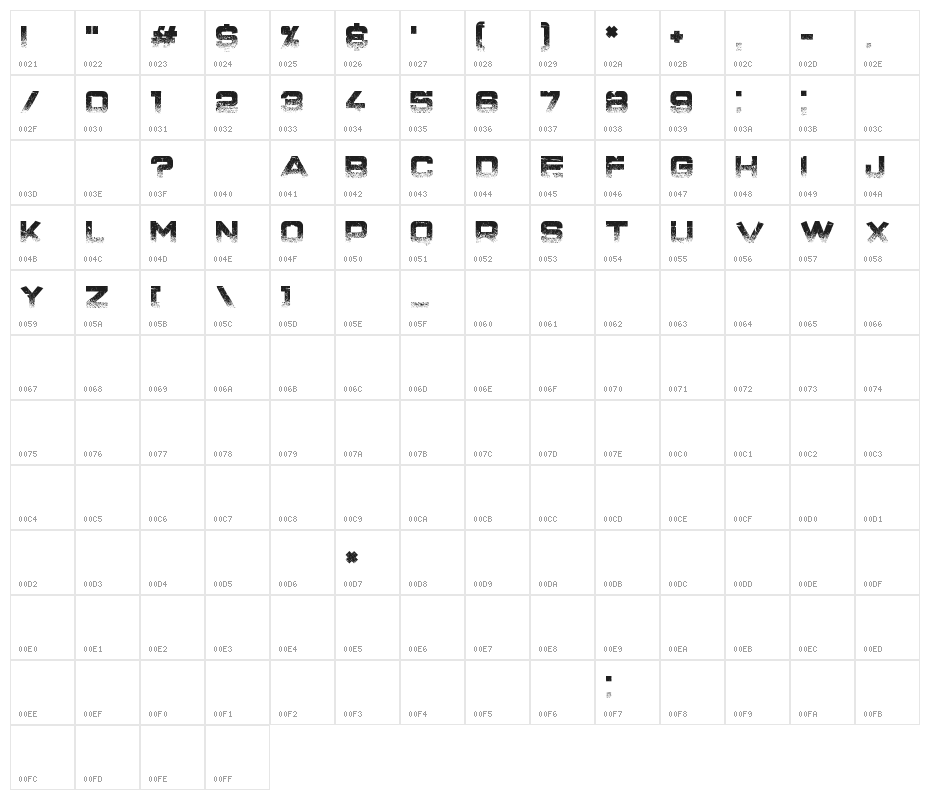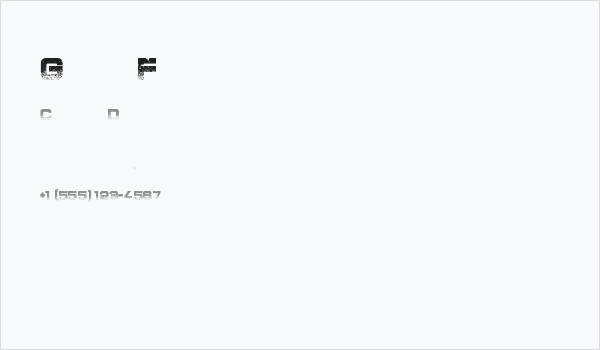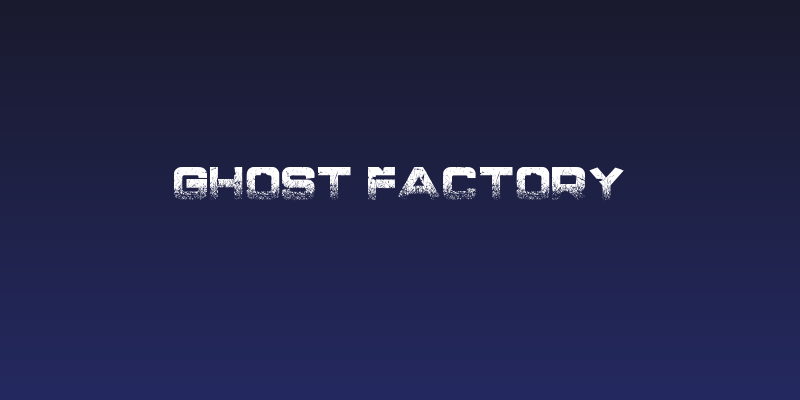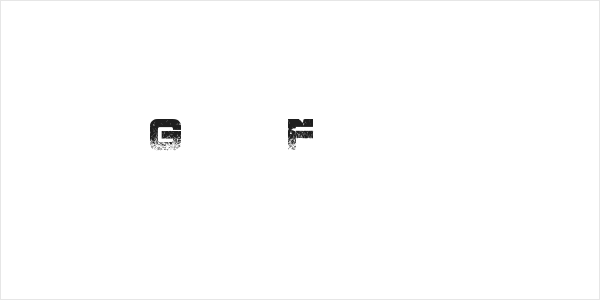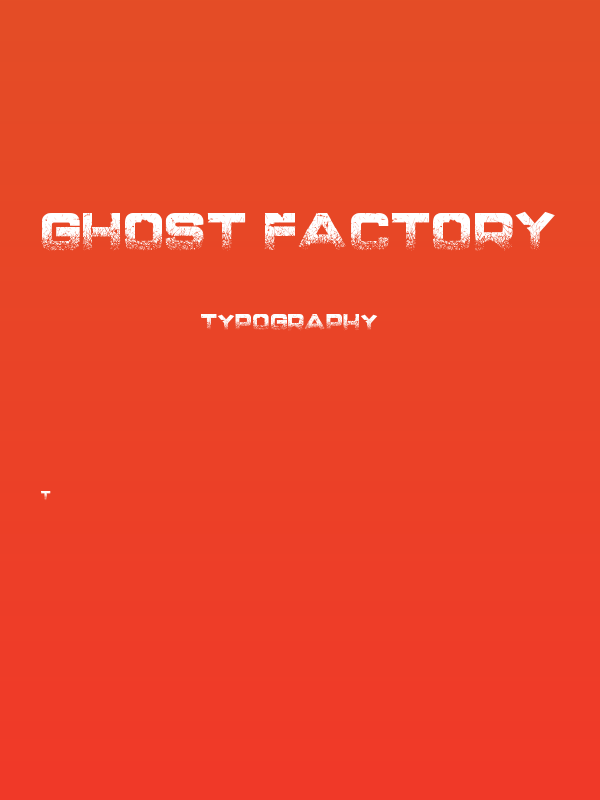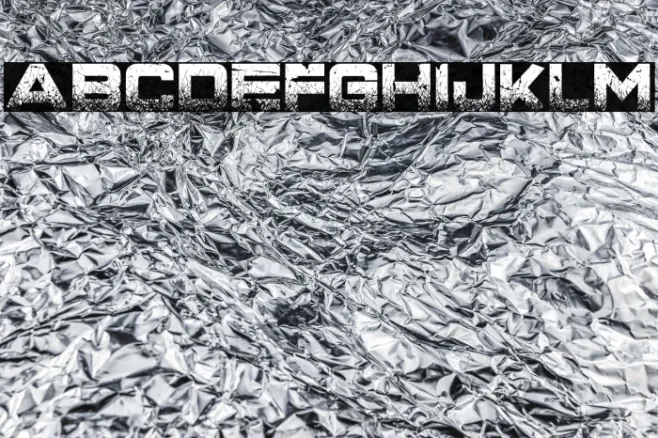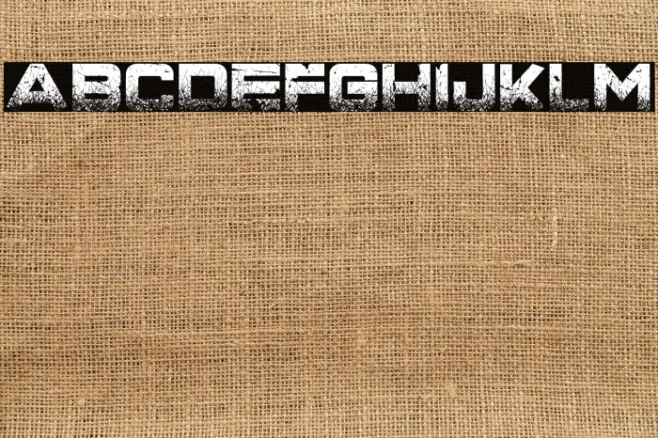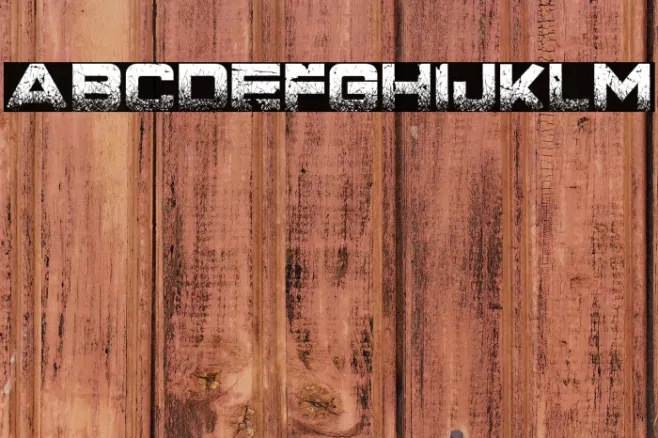
Ghost Factory Font
Ghost Factory Description
This font features a distressed, grunge style with a bold and impactful appearance. The characters are uppercase and have a rough, textured look that gives them a worn, industrial feel. The edges are irregular and appear as if they have been eroded or scratched, adding to the rugged aesthetic. This style is reminiscent of urban decay or factory settings, making it ideal for projects that require a gritty, raw look. The font maintains a consistent weight throughout, ensuring readability despite its unique design.
| Overall Style | Grunge, Industrial |
| Proposed Projects | Ideal for music album covers, urban-themed posters, video game graphics, and edgy branding materials. |